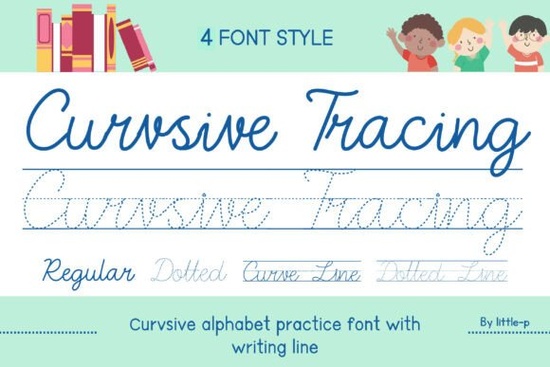
If you're creating handwriting practice materials for kids whether you're a teacher, homeschool parent, or designer making printable worksheets you know how important it is to use clear, structured fonts that actually support learning. That’s where Curvsive Tracing Font comes in. Designed specifically for cursive instruction, this font includes four distinct styles that guide young learners from observation to independent writing.
Unlike decorative script fonts meant for invitations or branding (like Whimsical Wedding or Shake Font), Curvsive Tracing Font focuses on function over flair. Each letterform follows standard cursive conventions, sits neatly on baseline guides, and offers visual scaffolding through its layered styles: Regular (for reference), Dot (for tracing dots), Curve Line (showing stroke direction), and Dot Line (a hybrid for intermediate practice).
Why choose a tracing-specific font instead of free alternatives?
Many free cursive fonts online lack consistent sizing, proper ascenders/descenders, or instructional cues. Curvsive Tracing Font solves this by providing a cohesive system. When you’re building a handwriting workbook or classroom handout, consistency matters kids need predictable letter shapes to build muscle memory. This font ensures every “a” looks like every other “a,” which reduces confusion during early learning stages.
It also saves time. Instead of drawing dotted lines manually or layering multiple fonts in design software, you can switch between the four built-in styles with a simple font change. That’s especially helpful if you’re designing bundles for Etsy, Teachers Pay Teachers, or your own homeschool curriculum.
Who actually uses this kind of font?
You might be surprised how versatile educational fonts can be:
- Teachers create daily practice sheets aligned with curriculum standards.
- Homeschool parents build custom workbooks tailored to their child’s pace.
- Print-on-demand sellers develop themed cursive journals or summer skill packets.
- Graphic designers craft branded learning materials for tutoring centers or apps.
Even crafters making personalized name tracing cards for birthdays or back-to-school gifts find this font practical. Unlike more artistic scripts like Beetle Duo, which shines in logos and quotes, Curvsive Tracing prioritizes legibility and pedagogy.
How to use it effectively in your projects
Start by matching the font style to the learner’s stage:
- Regular: Show the correct final form great for headers or answer keys.
- Dot: Ideal for beginners tracing with a pencil.
- Curve Line: Helps kids understand stroke flow (especially useful for letters like “g” or “z”).
- Dot Line: A bridge to independent writing less guidance, more space for their own penmanship.
Pair it with clean layout design. Avoid cluttering the page; leave ample white space so young eyes aren’t overwhelmed. Use consistent line height and spacing most design tools let you adjust these easily when using OpenType fonts like this one.
And remember: while fonts like Handwriting Font mimic natural pen strokes for casual notes or greeting cards, Curvsive Tracing is purpose-built for structured learning. Don’t mix them in the same worksheet unless you’re intentionally contrasting “practice” vs. “real-world” writing.